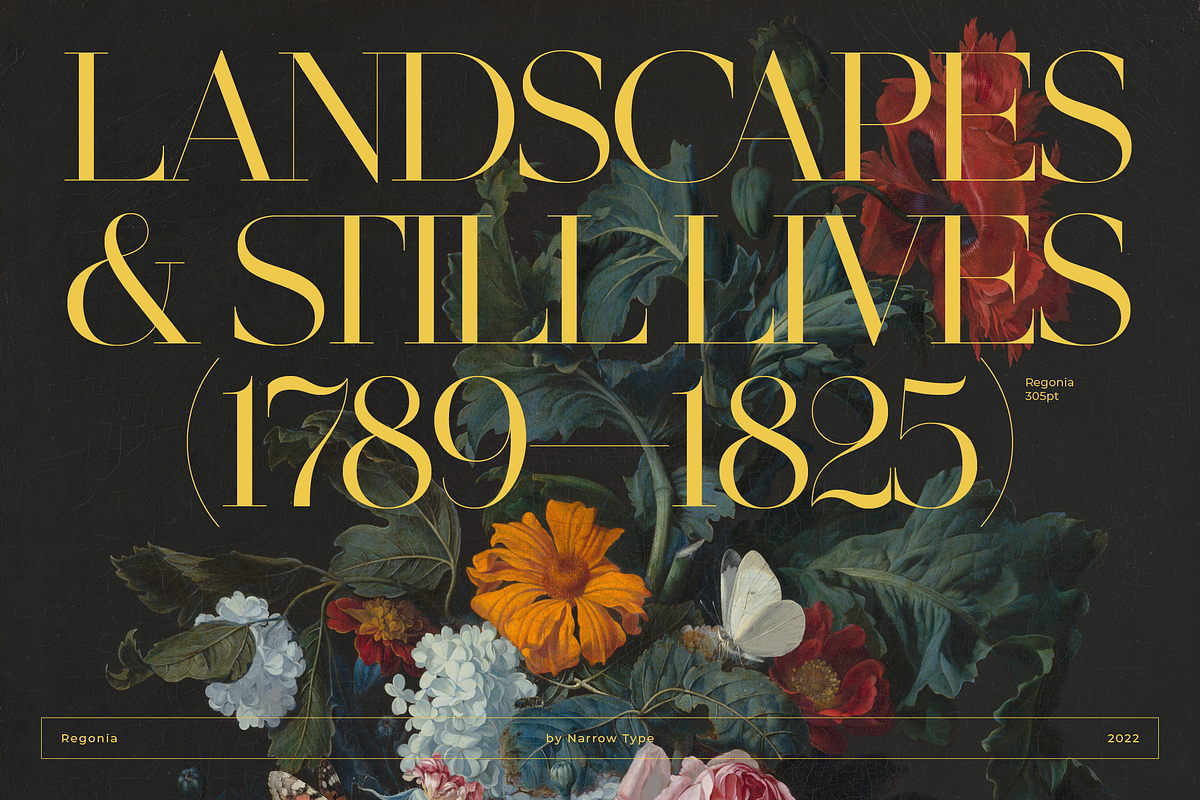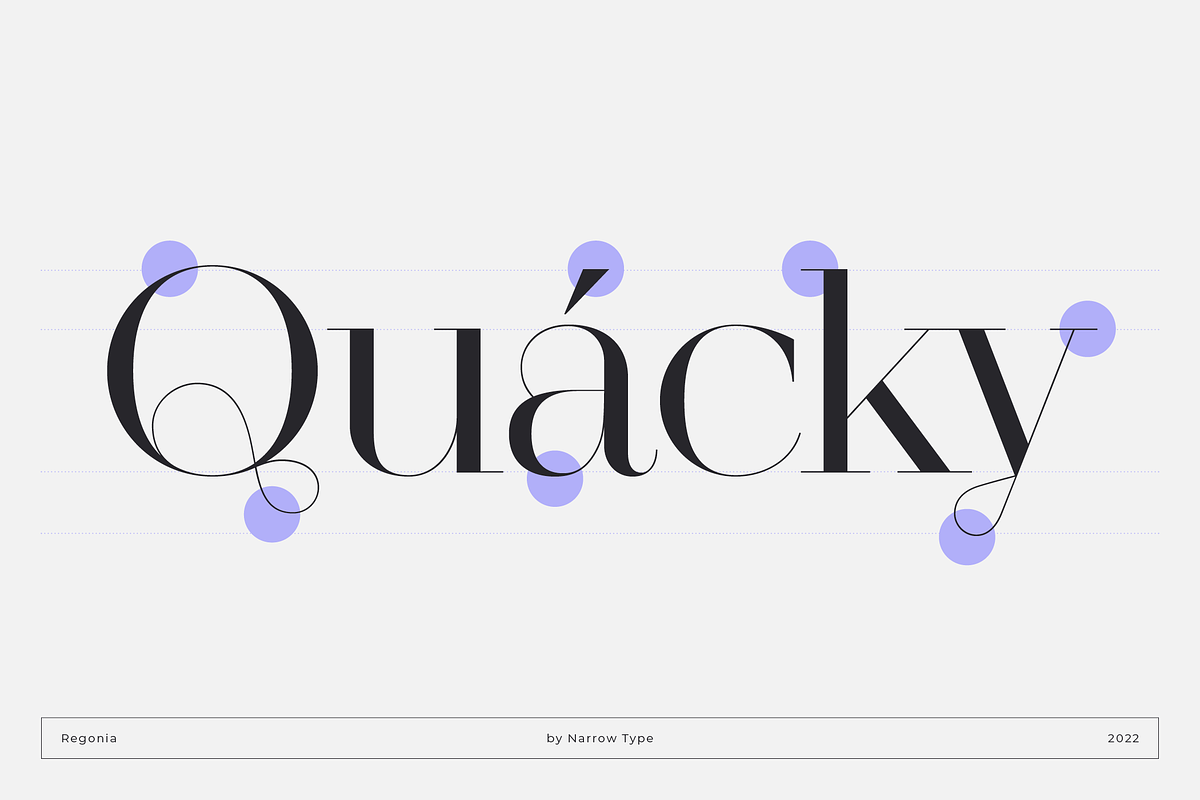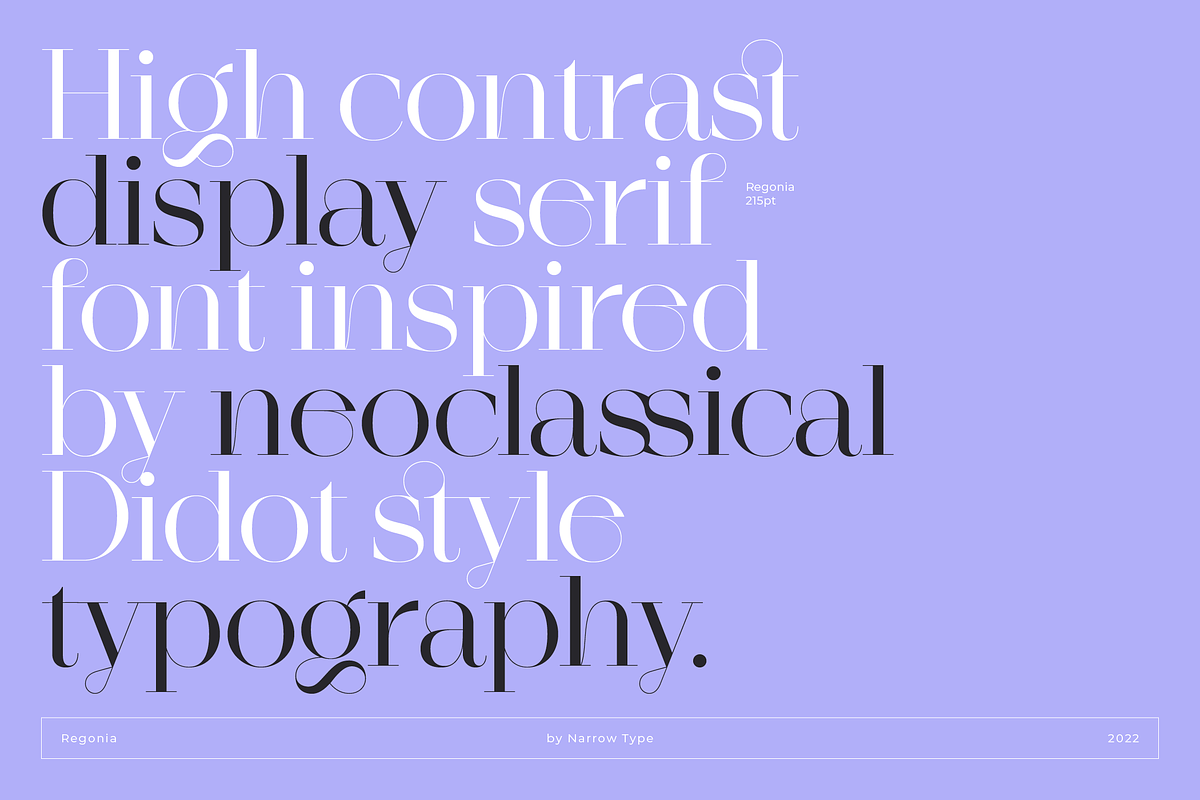
Regonia Font
Regonia Font
Regonia is a modern, high-contrast display serif typeface inspired by neoclassical typefaces like Didot or Bodoni. It features thin hairlines and unique curvy details, giving it an elegant and contemporary look.
Regonia has a large x-height and works perfectly in headlines or bigger sizes. It is also equipped with many ligatures and alternative glyphs, which will make your projects more unique.
This font is perfect for projects that require a touch of sophistication and elegance, such as editorial design, branding, wedding invitations, or fashion magazines.
• Uppercase, lowercase, numbers, symbols and punctuation
• Standard and discretionary ligatures
• Stylistic alternates
• Multilingual
• 456 glyphs in total